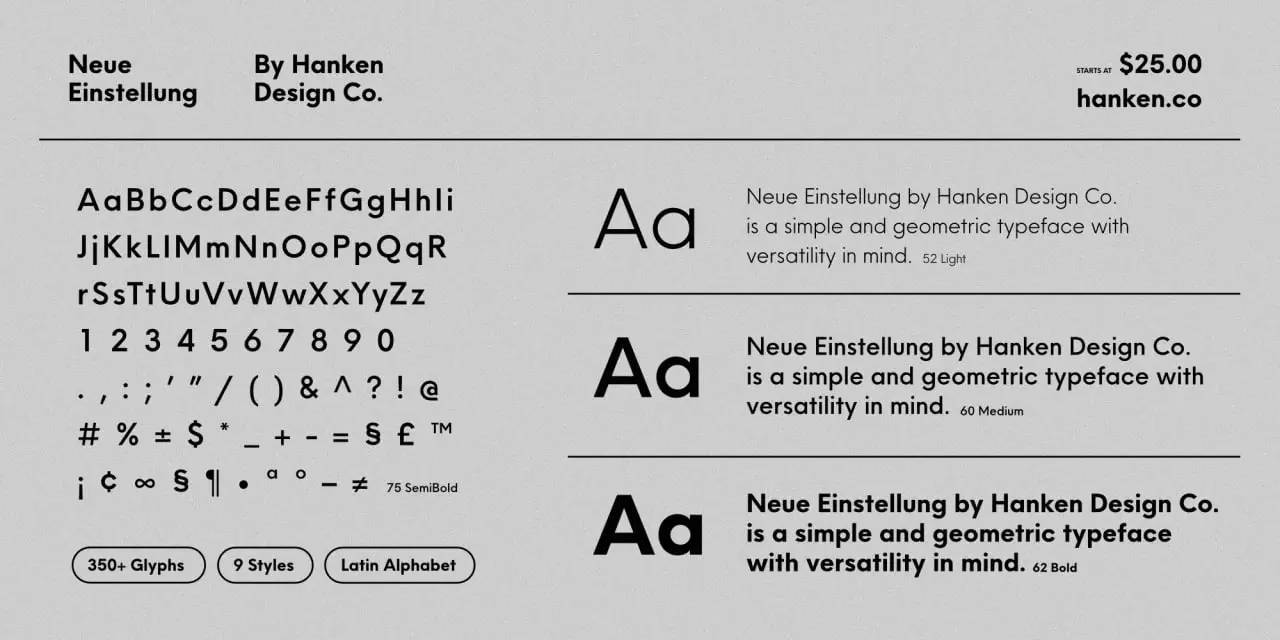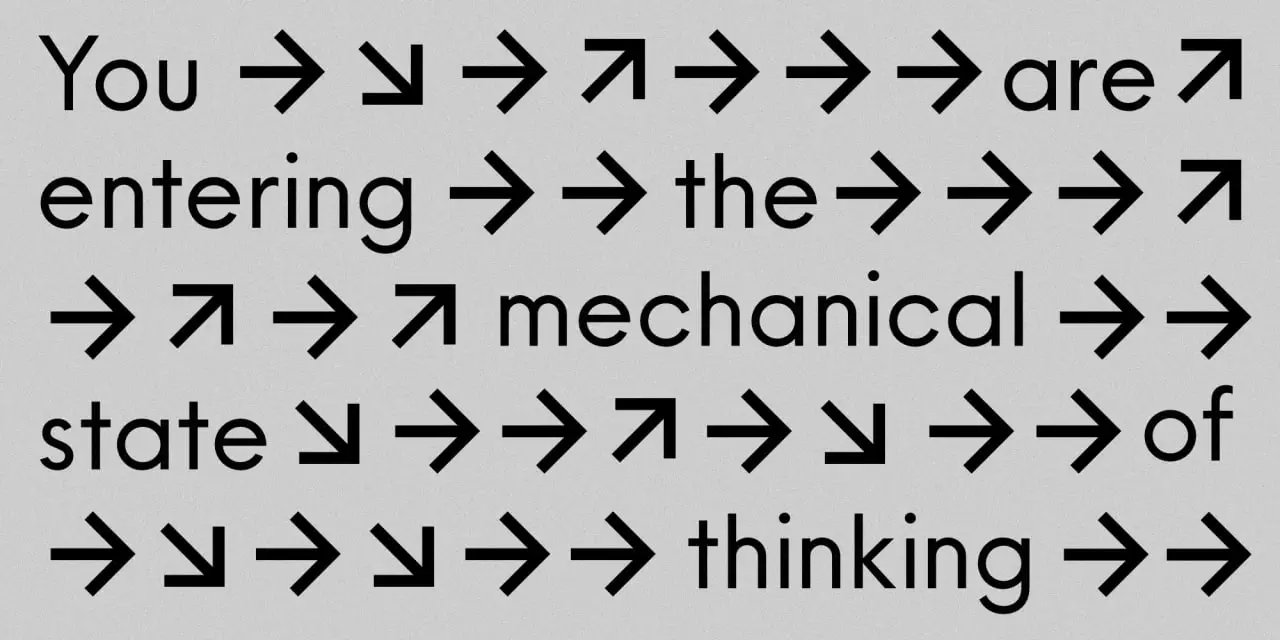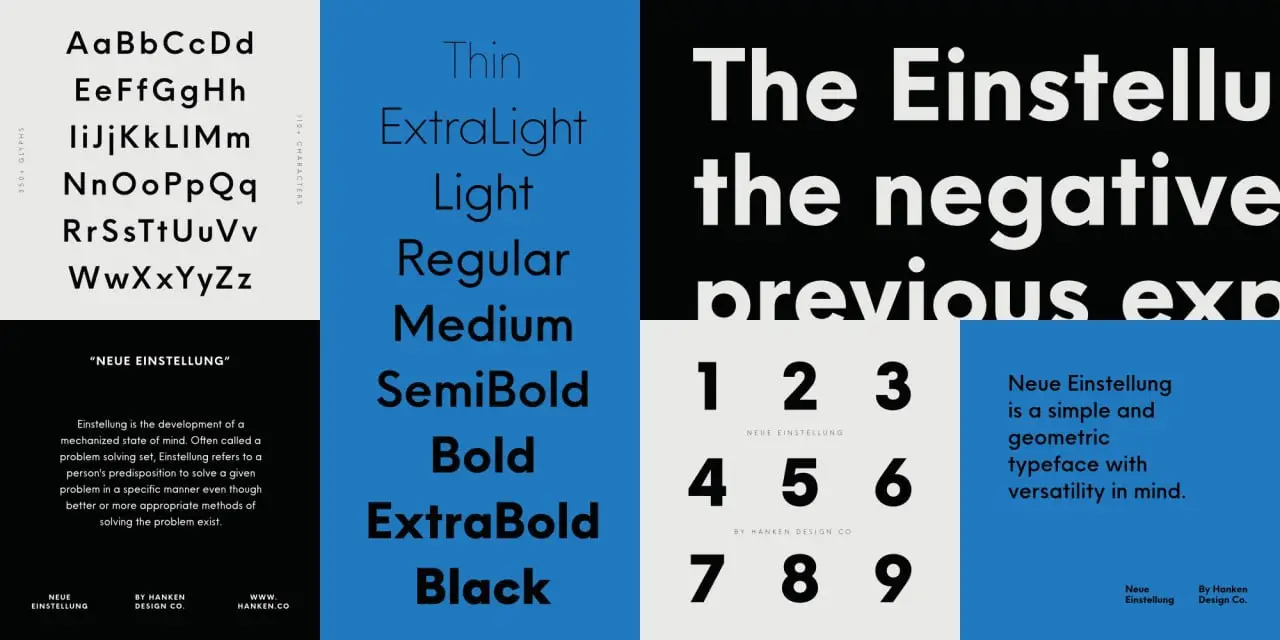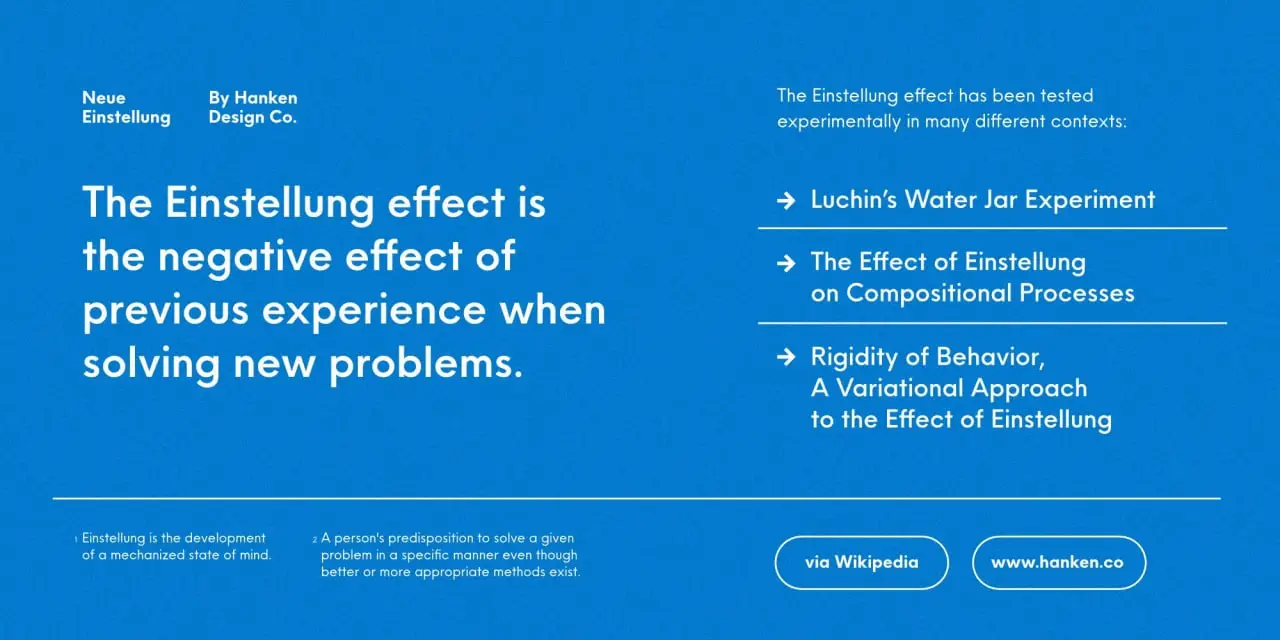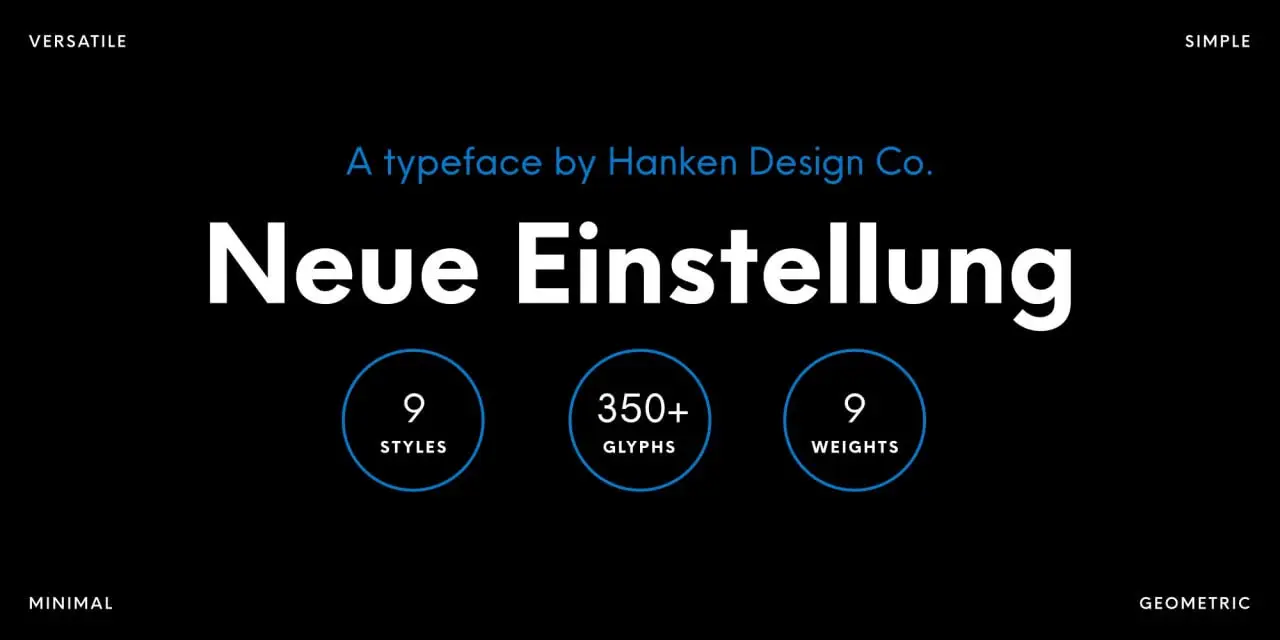
Neue Einstellung Font By Alfredo Marco Pradil
Introducing the Neue Einstellung Font by Alfredo Marco Pradil, a versatile typeface that combines modern aesthetics with classic influences. This font is designed to elevate your projects, whether for digital or print applications.
Neue Einstellung features a clean and contemporary design, available in multiple weights to suit various design needs. The font is offered in several formats including OTF, TTF, and WOFF, ensuring compatibility across different platforms.
Utilize Neue Einstellung for branding, logos, web design, and print materials. Its legibility and stylish appearance make it ideal for headlines, body text, and user interfaces.